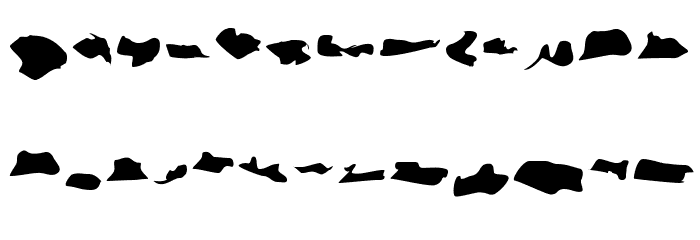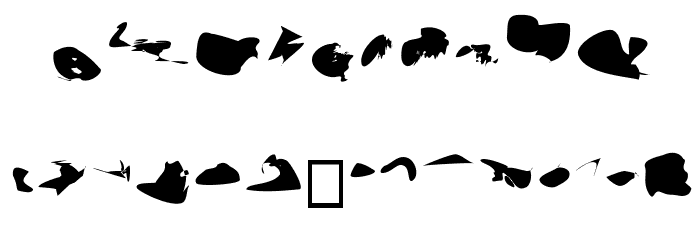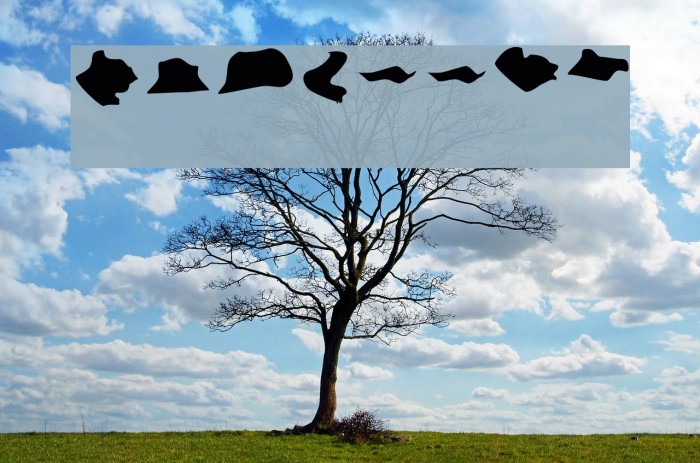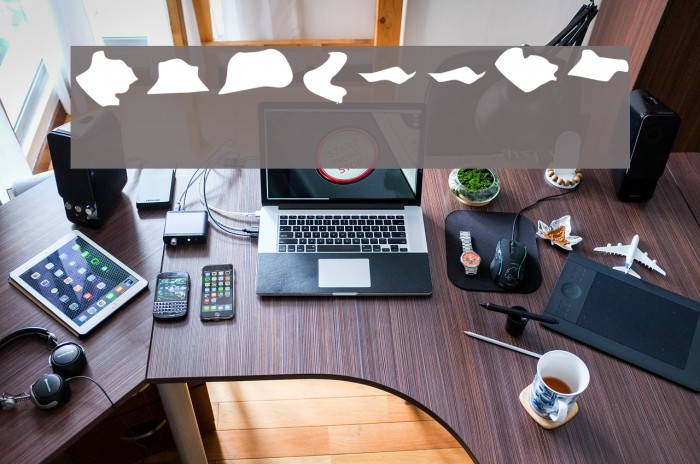
Splitter Font
This font features abstract, amorphous shapes that resemble ink blots or artistic brush strokes. Each character is highly stylized, lacking traditional form, and presents a unique, organic silhouette. The letters and symbols are not immediately recognizable, offering a mysterious and avant-garde aesthetic. This font challenges conventional readability, making it more suitable for artistic and decorative purposes rather than practical text applications. Its bold and irregular forms create a sense of movement and fluidity, evoking a sense of creativity and spontaneity.
An abstract, artistic font with amorphous, ink blot-like characters.
- Proposed Projects: Ideal for artistic projects, abstract art pieces, experimental design, and decorative elements in creative media.
- Character Spacing: Wide
- Overall Style: Avant-garde, Artistic
- Use Case: Decorative elements, Artistic projects